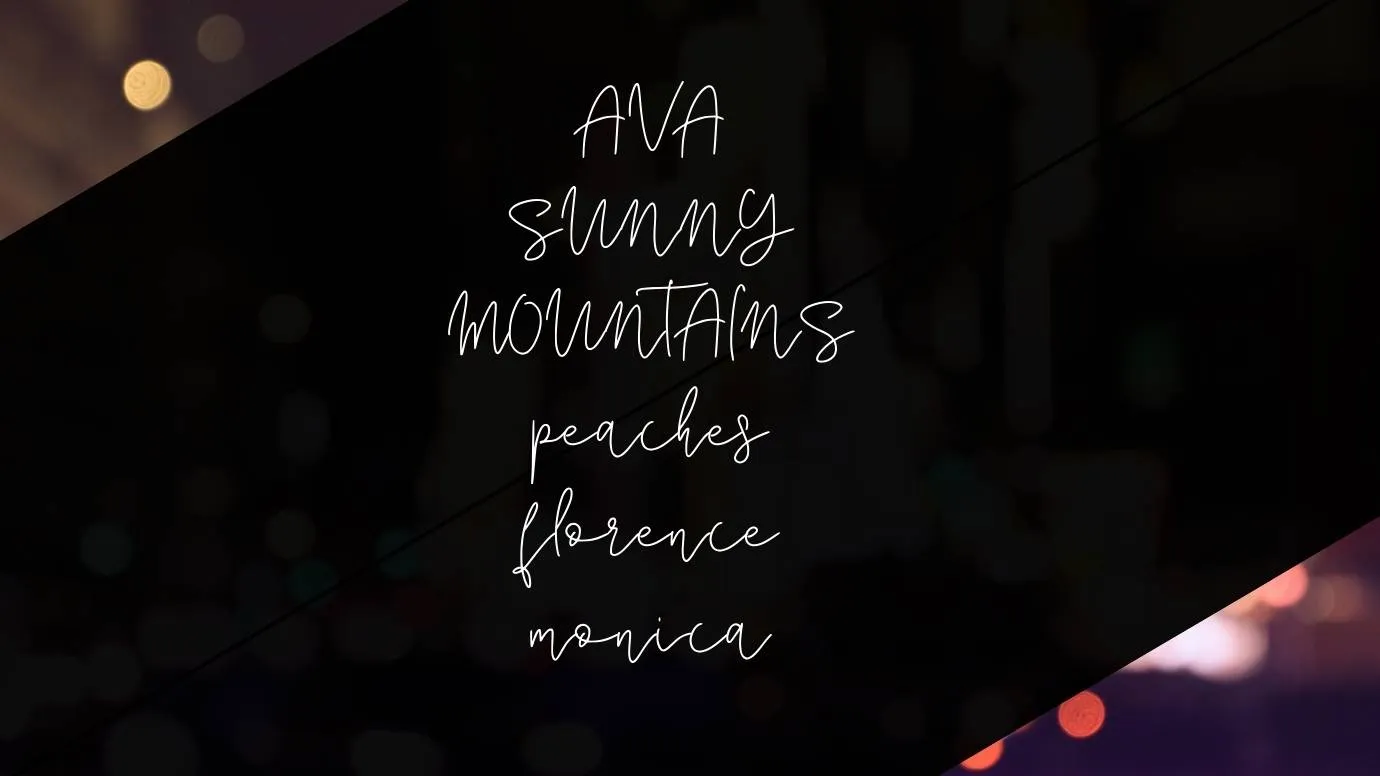
Corline Signature Font was designed by Kevin Cornell and is a brush script typeface. The Corline Signature texture family includes regular, bold, and black weights, each with an italic counterpart.
It was inspired by American Signpainters of the 1940s-1960s. The design is based on lettering seen on shop signs, handbills, and other ephemera of the time.
It is perfect for use in branding, advertising, and product packaging. It has a vintage feel that will give your designs a unique look.
If you’re looking for a brush script font with a vintage flair, then the Corline Signature texture is the perfect choice for you. You can compare it with tanya hati font. It has stylish textures and a retro feel that will give your designs a one-of-a-kind look.
It was designed by Kevin Cornell and is a brush script typeface. The Corline Signature texture family includes regular, bold, and black weights.
It mixes different factors, including characters, unique symbols, uppercase letters and lower-case letters, digits, punctuations, glyphs, and numerous language support.
What is Corline Signature Font?
It is a handwritten script typeface designed by Kevin Cornell. This texture family includes regular, bold, and black weights, each with an italic counterpart.
Where can I use Corline Signature Texture?
It is perfect for use in branding, advertising, and product packaging. It has a vintage feel that will give your designs a unique look.
What sets Corline Signature texture apart from other brush script fonts?
This texture was inspired by American Signpainters of the 1940s-1960s. The design is based on lettering seen on shop signs, handbills, and other ephemera of the time.